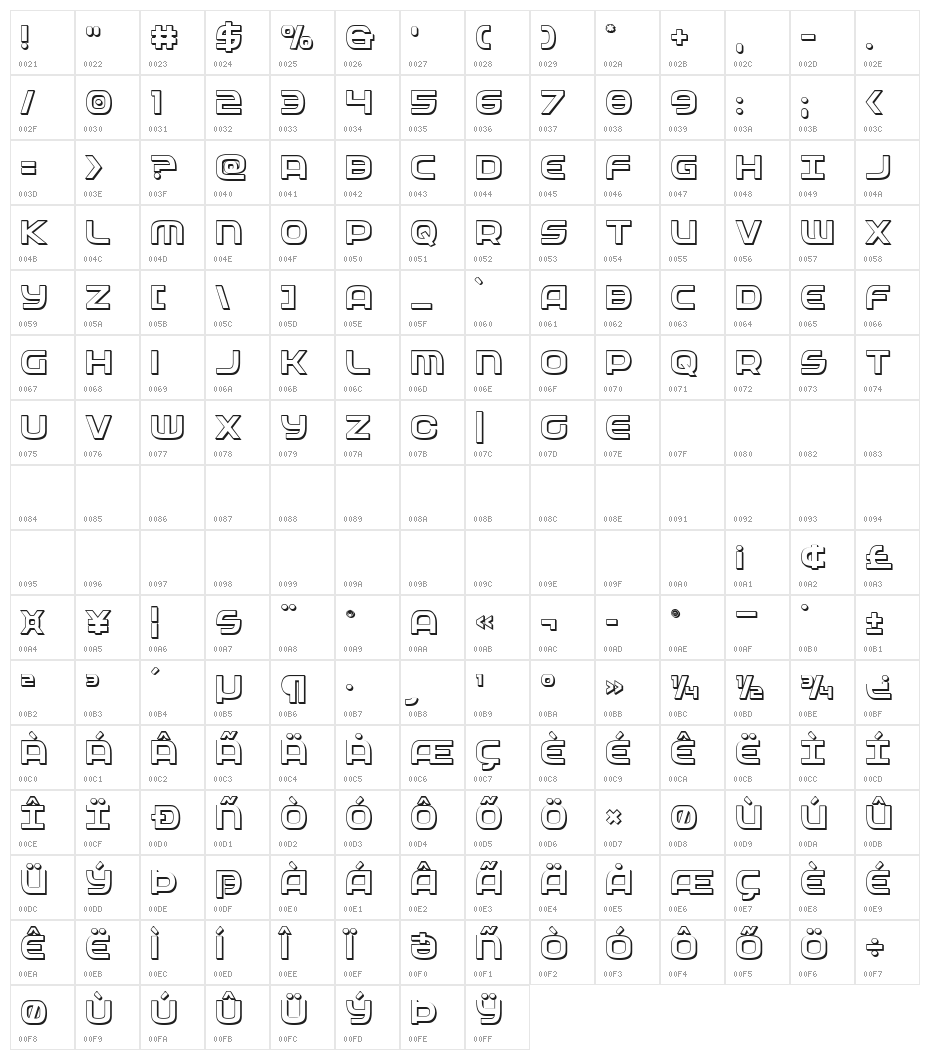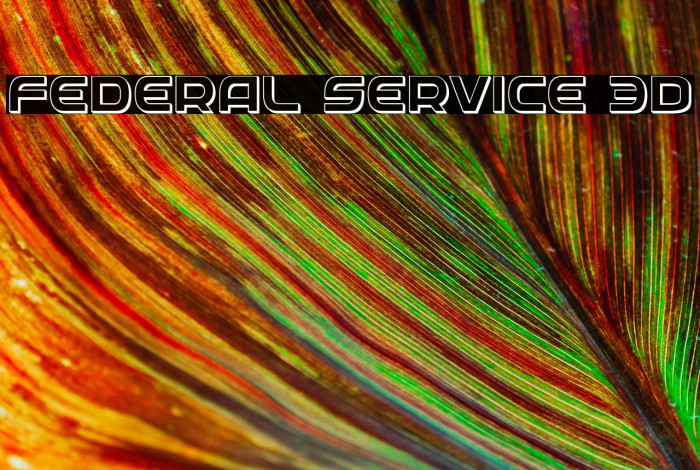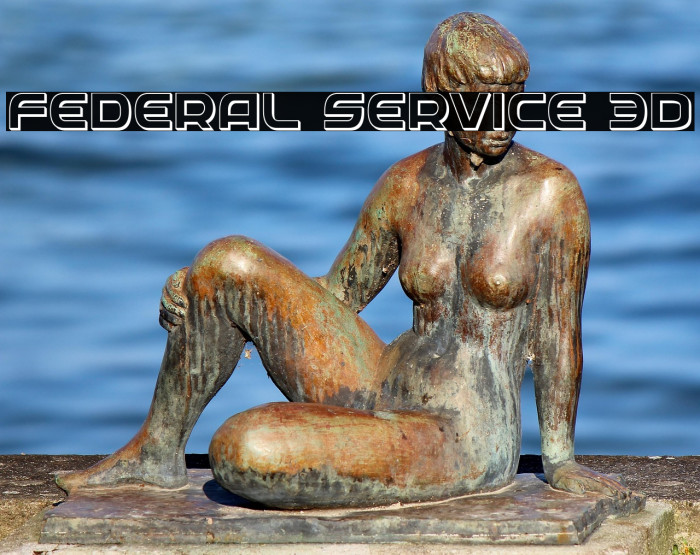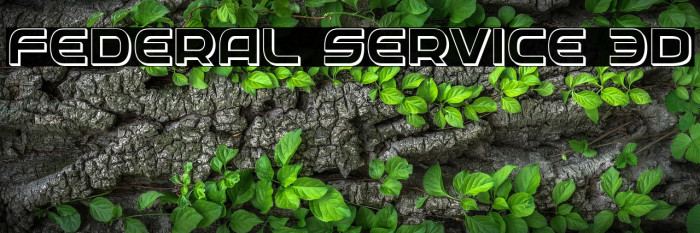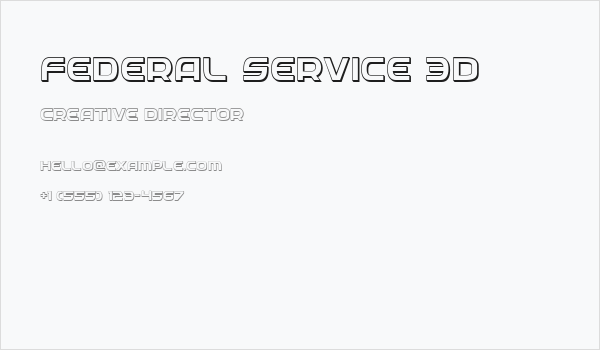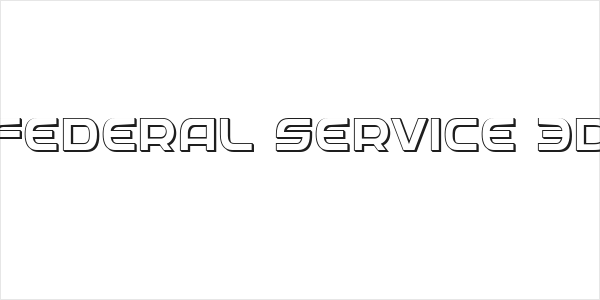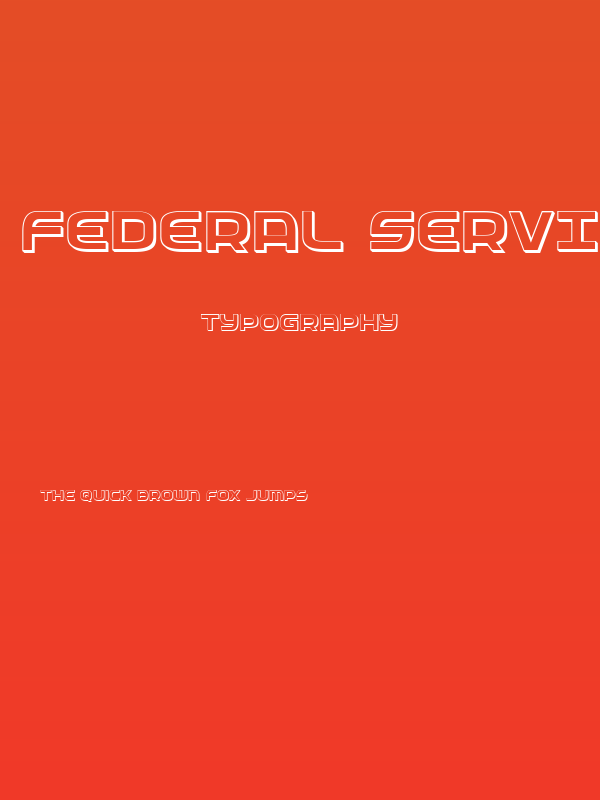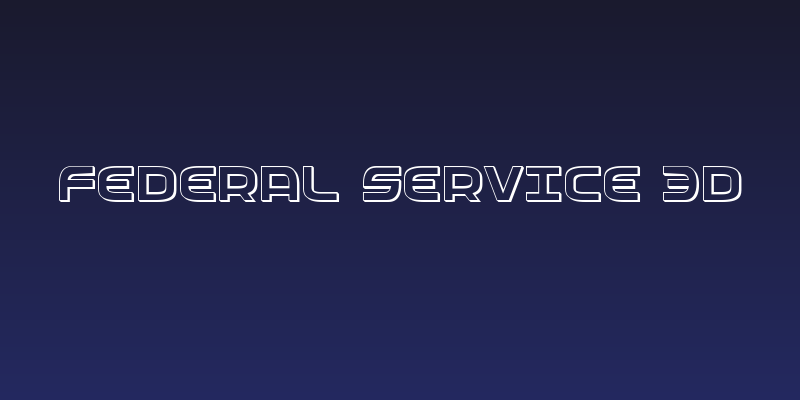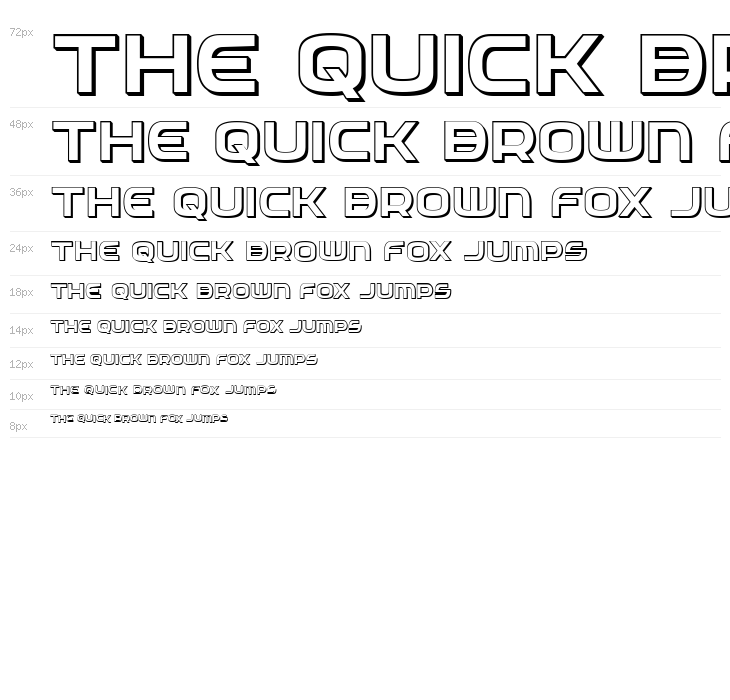
Federal Service 3D Font
Federal Service 3D Description
This font features a bold, geometric design with a 3D effect that gives it a futuristic and dynamic appearance. The characters are outlined, creating a hollow look that adds depth and dimension. Each letter is constructed with clean, straight lines and sharp angles, contributing to a modern aesthetic. The uniformity in the design ensures consistency across all characters, making it suitable for various applications. The numbers and special characters maintain the same stylistic approach, ensuring a cohesive look throughout. This font is ideal for projects that require a strong visual impact and a contemporary feel.